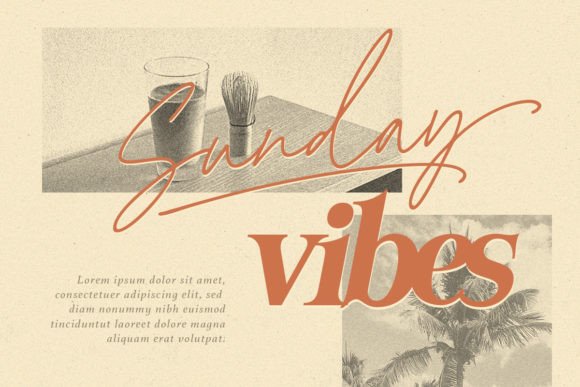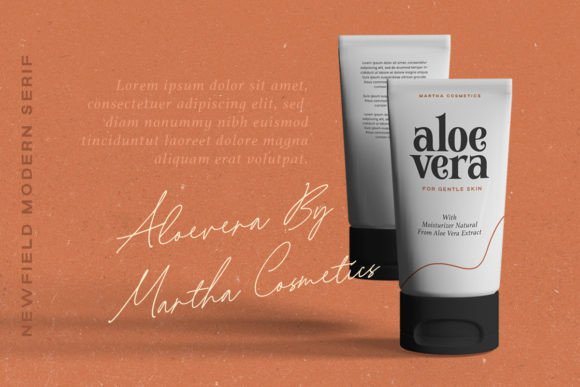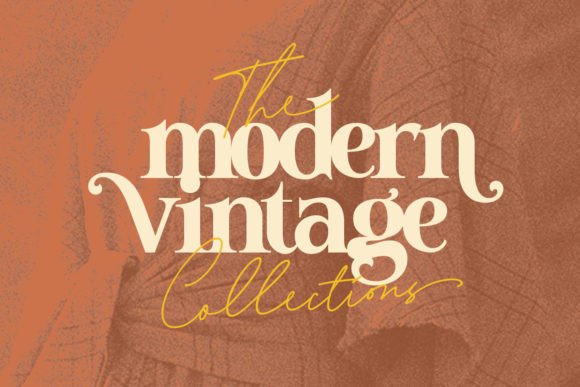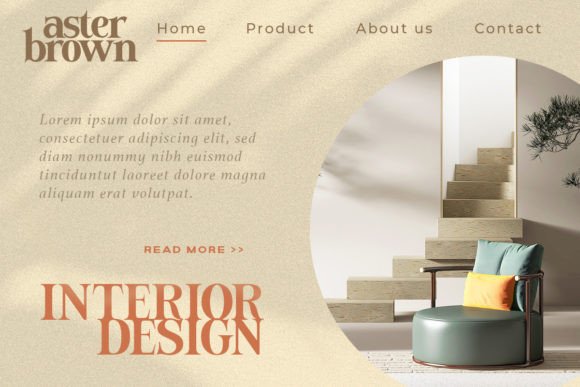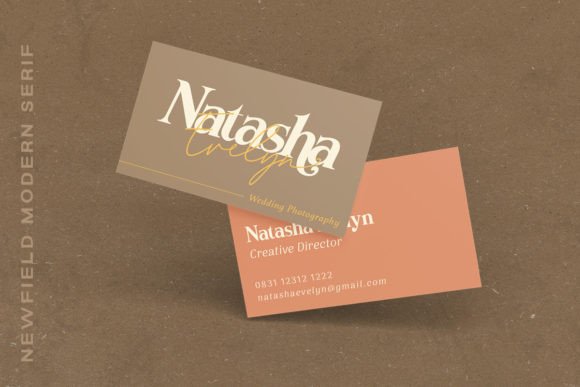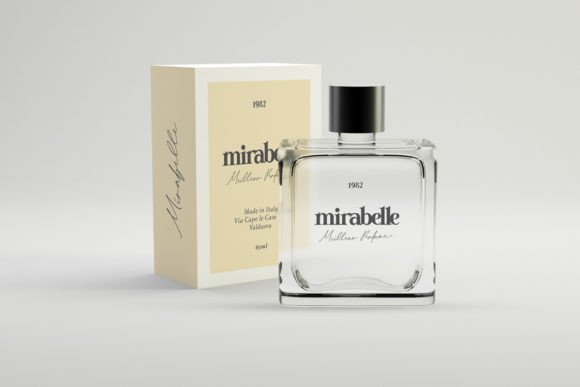
Introduction to Newfield Font
Remember that moment when you’re working on a creative project, pouring your heart and soul into every detail, and you need just the right font to elevate it to the next level? For many designers, this is the moment when the perfect font can make all the difference between a good design and a great one. That’s where the Newfield Font comes in – a sophisticated and stylish serif font designed to add a touch of class to any project with its timeless charm.
Whether you’re working on a high-end brochure, a luxury brand identity, or a premium website, the Newfield Font is the perfect design resource to help you achieve your vision. With its clean lines and elegant curves, this modern font is sure to impress, and its high quality makes it perfect for printing on a transparent background or using as a digital design element.
Key Features of Newfield Font
- High-quality design resource suitable for creative projects, with a clean and elegant aesthetic.
- Available in multiple font sizes and styles, making it a versatile design resource for various creative projects.
- Perfect for use in graphic design, digital art, and other creative endeavors, with a high level of detail and precision.
Honest Review: Newfield Font
I recently had the chance to work with the Newfield Font for a creative project and I’m excited to share my honest thoughts. The Newfield Font is a high-quality design resource that offers a unique and elegant feel to any project.
One of the standout features of the Newfield Font is its versatility. It’s perfect for a wide range of creative projects, from branding and marketing materials to editorial and publishing content. I was impressed by how well it pairs with other design elements, and it’s especially great for creating a professional and polished look.
Here are some of the things that work well with the Newfield Font:
- ✨ Elegant and sophisticated feel
- ✨ Highly versatile and adaptable to different design contexts
- ✨ High-quality design resource
- ✨ Can be easily customized to suit your design needs
- ⚠️ Some users may find the font a bit too elegant or formal for certain projects
Overall, I’m very impressed with the Newfield Font and I think it’s a great addition to any designer’s toolkit. With its high-quality design and versatility, it’s sure to be a valuable resource for any creative project.
Newfield Font
Tips for Getting the Most Out of Newfield Font
Experiment with different font sizes and styles to find the perfect look for your project. You can also combine Newfield Font with other design elements to create a unique and eye-catching visual identity.
Newfield Font is ideal for a variety of applications, including branding, advertising, and editorial design. Its high-quality design and transparent background make it a versatile and effective design resource.